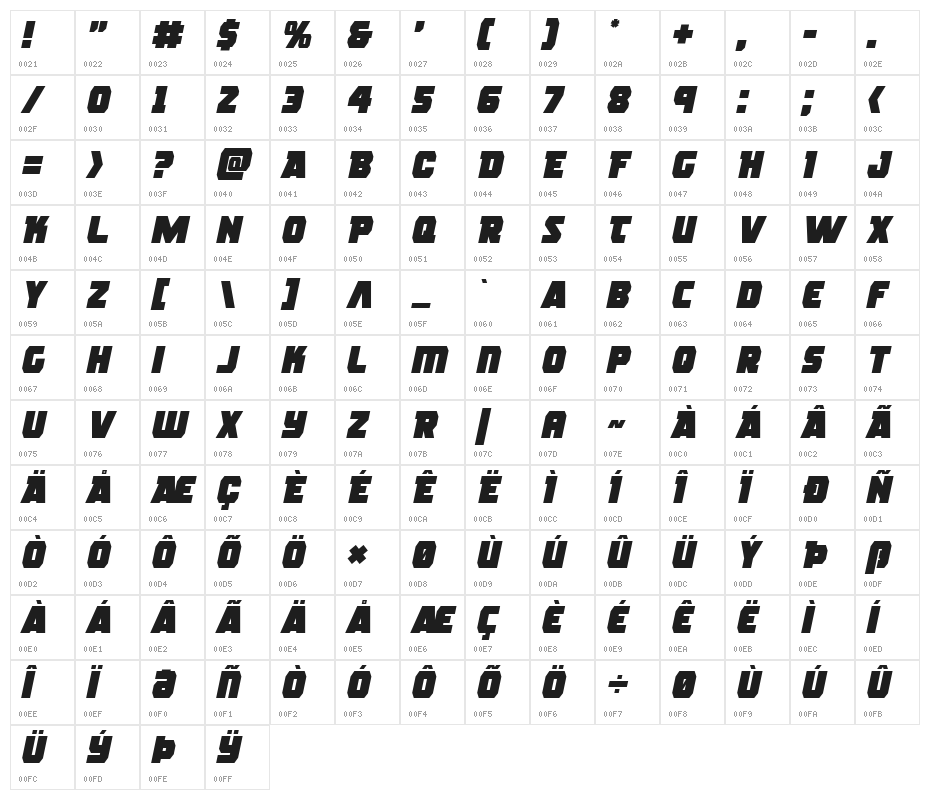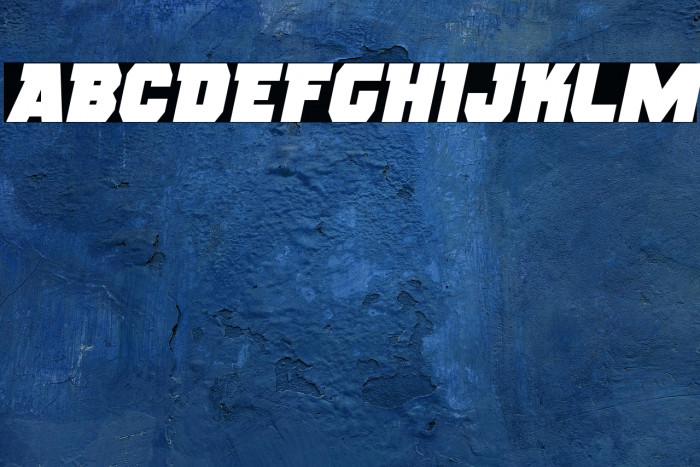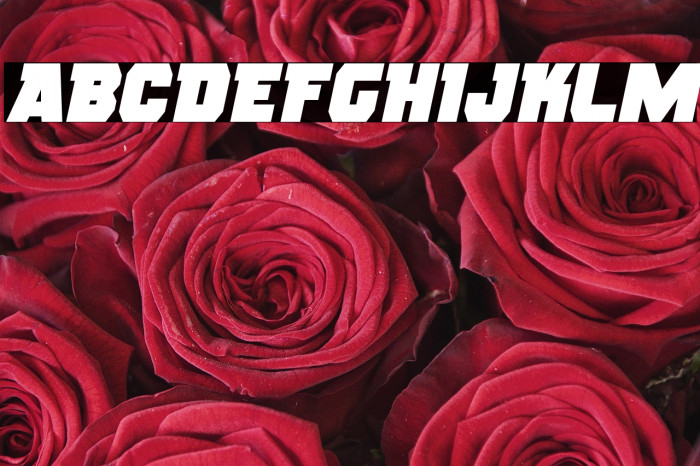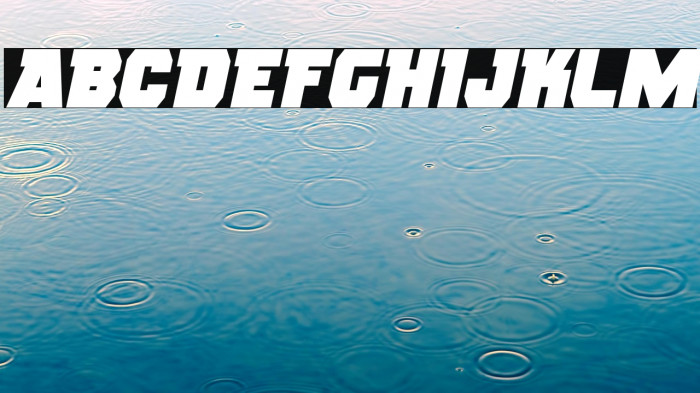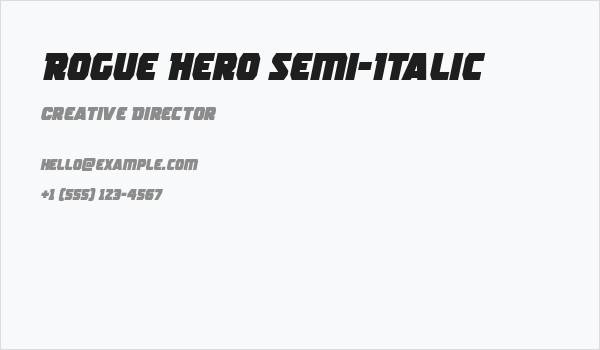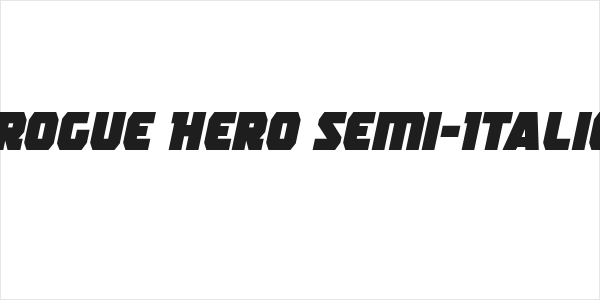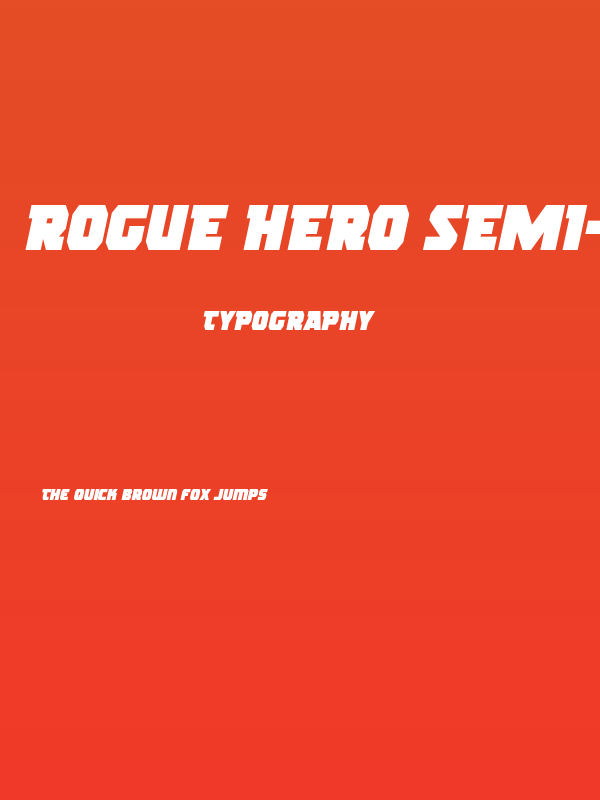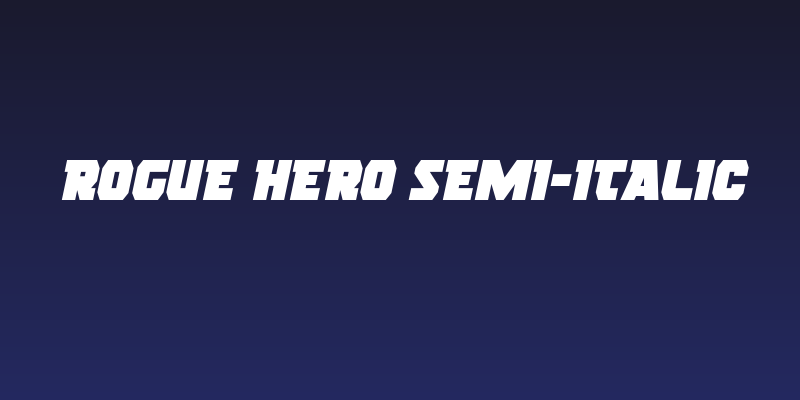
Rogue Hero Semi-Italic Font
Rogue Hero Semi-Italic Description
This font features a bold and dynamic design with a semi-italic slant, giving it a sense of movement and energy. The characters are robust and angular, with sharp edges and a strong presence. The uppercase letters are particularly striking, with a blocky and geometric style that commands attention. The numbers and special characters maintain this bold aesthetic, ensuring consistency across all elements. The font's design is modern and assertive, making it ideal for projects that require a strong visual impact.
| Proposed Projects | Ideal for sports branding, action movie posters, video game titles, and dynamic advertising campaigns. |